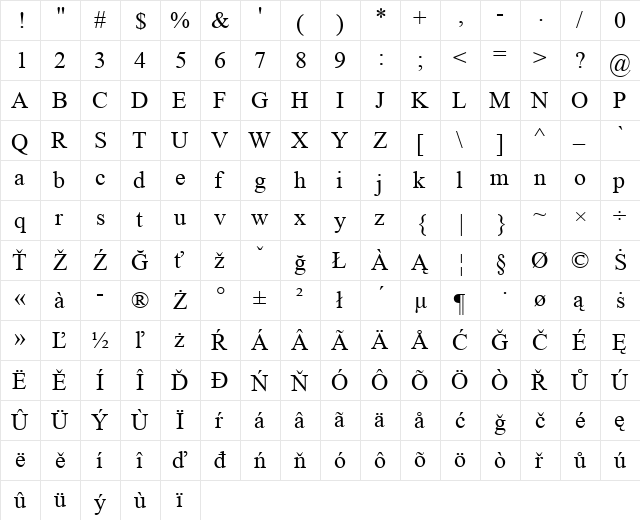
Times of Slavisk Regular
| Designer | Libor Sztemon, Havv (CZE) |
Design Context for Times of Slavisk Typeface
Times of Slavisk takes a measured approach to typography — its balanced proportions and neutral character make it a reliable workhorse for both digital and print work.
Pro Tip: Pair Times of Slavisk with a font of contrasting weight or personality to build a more expressive typographic hierarchy.